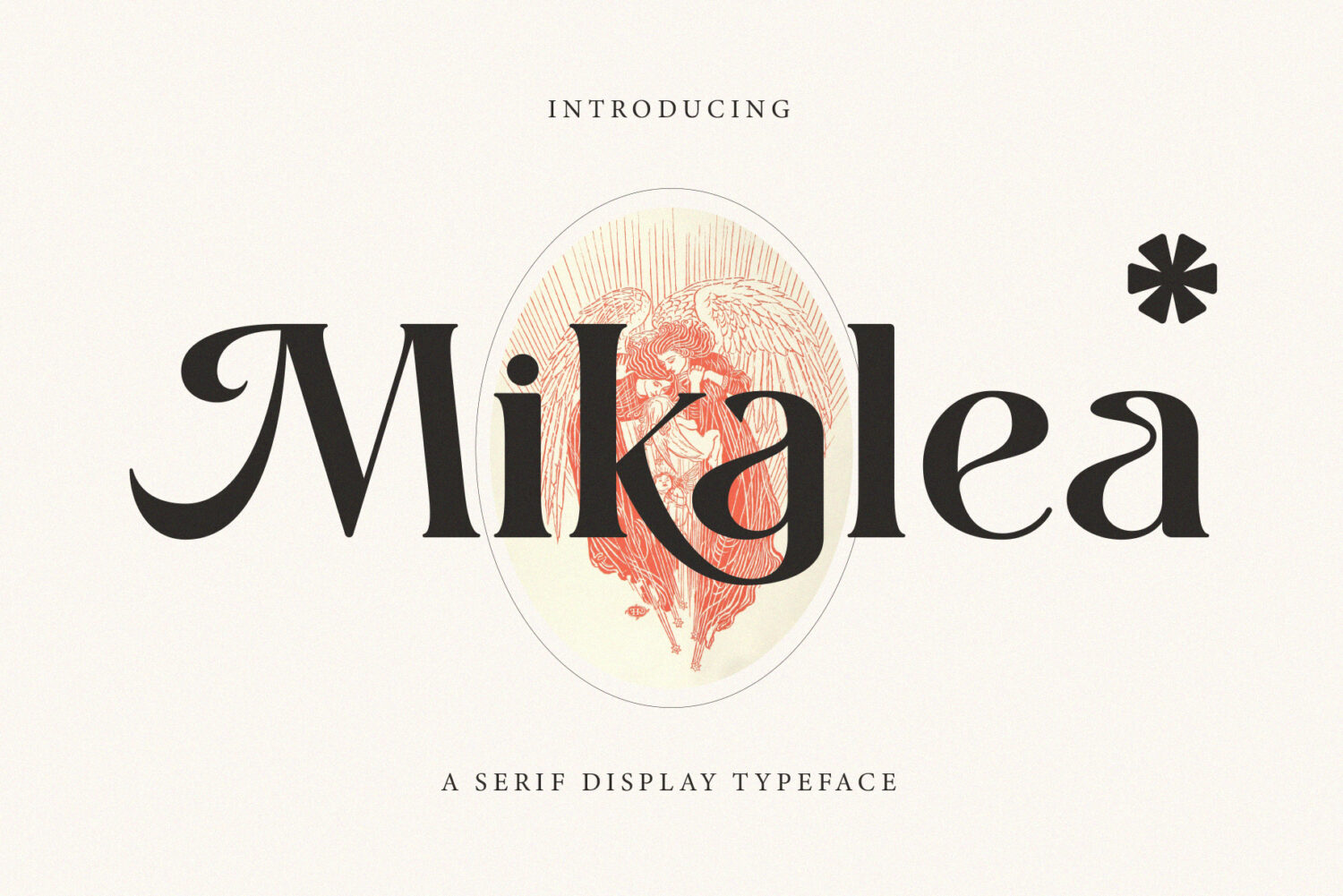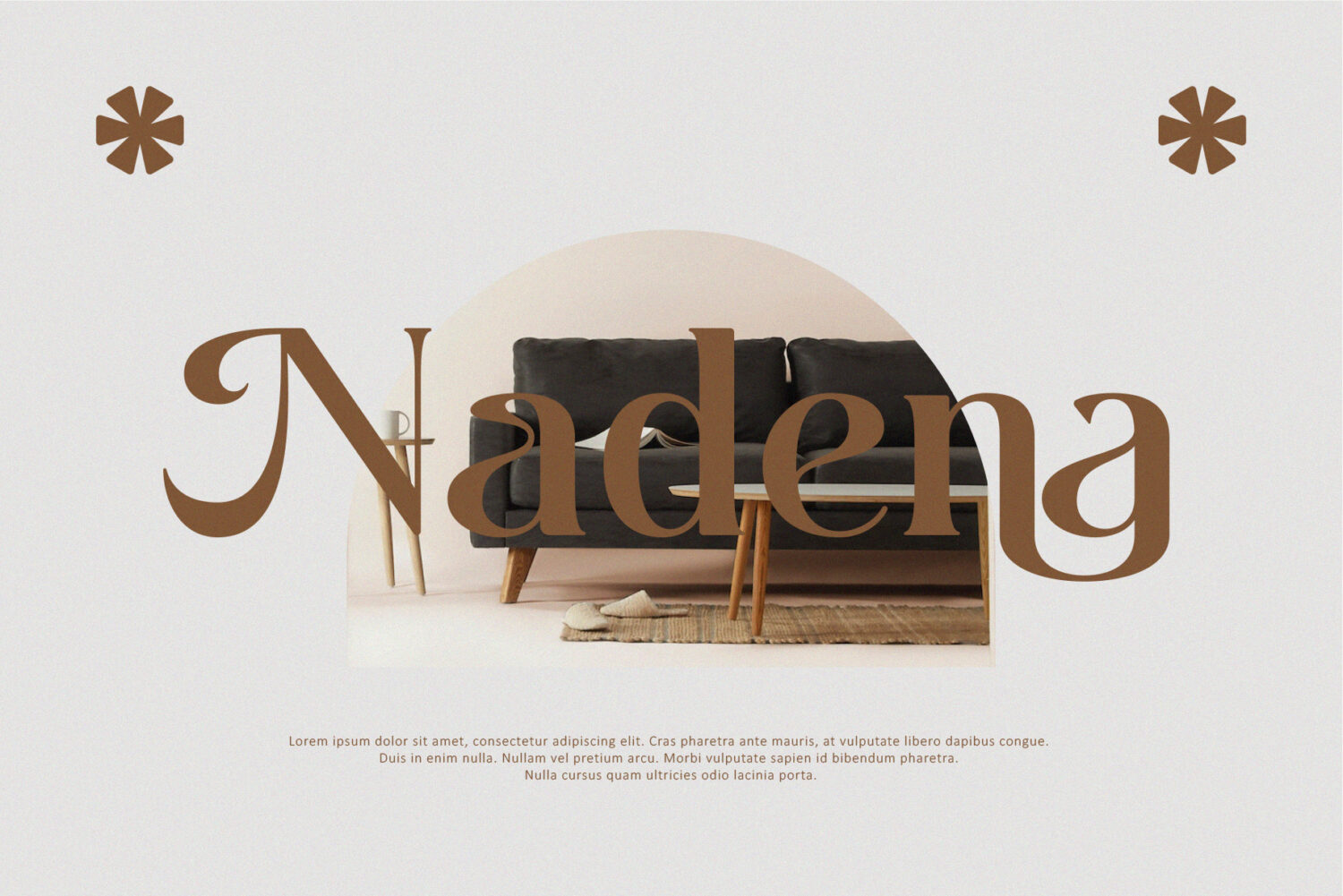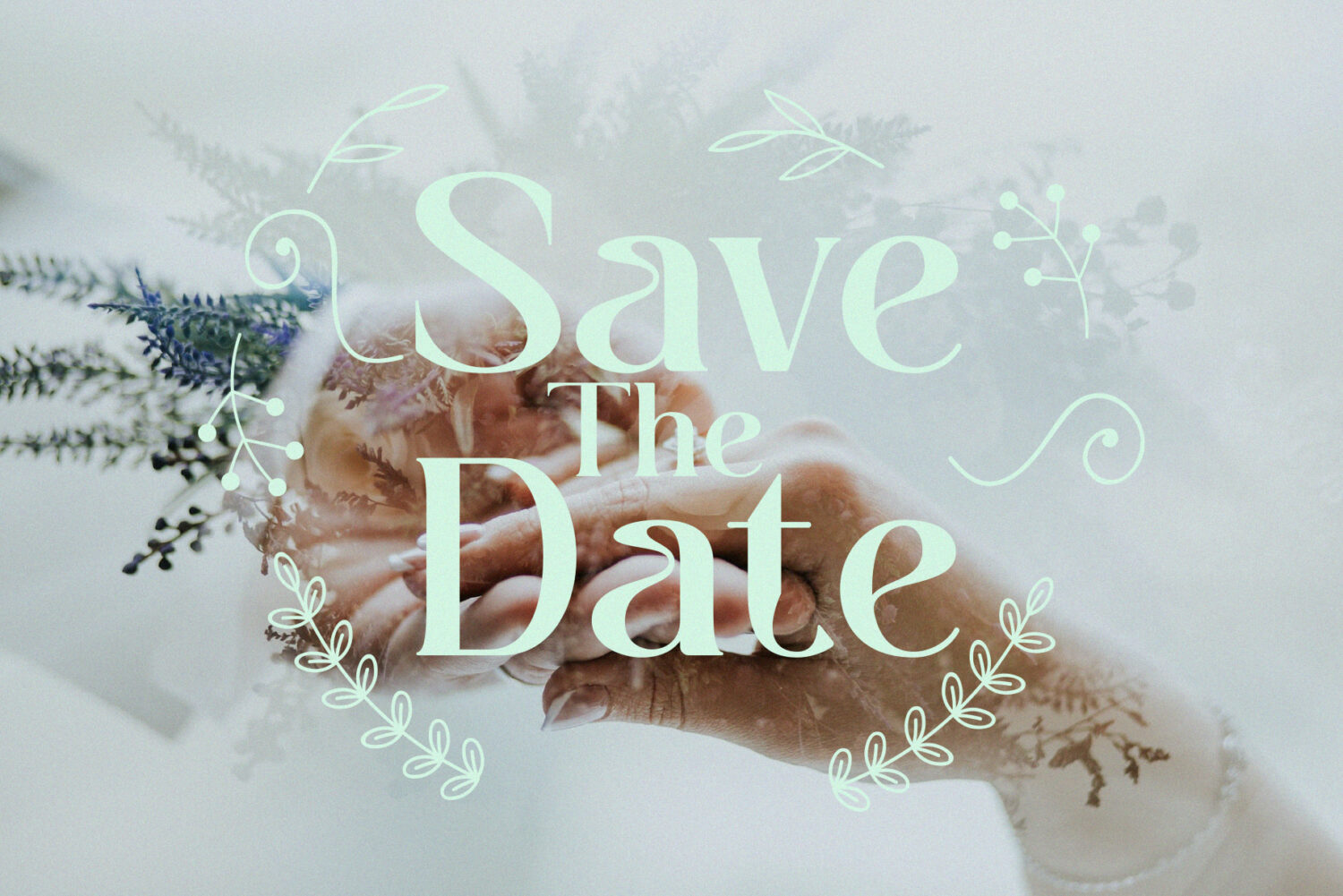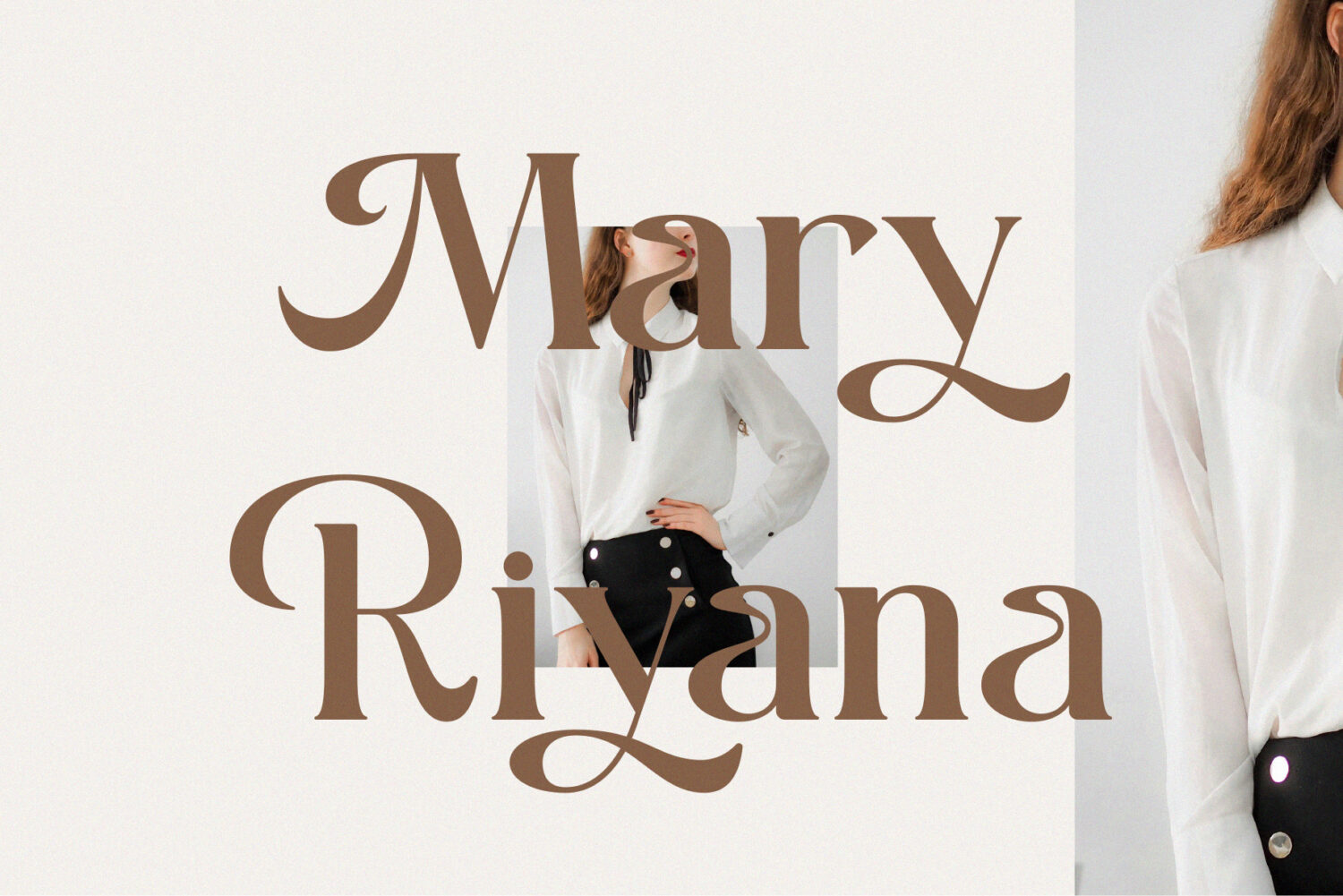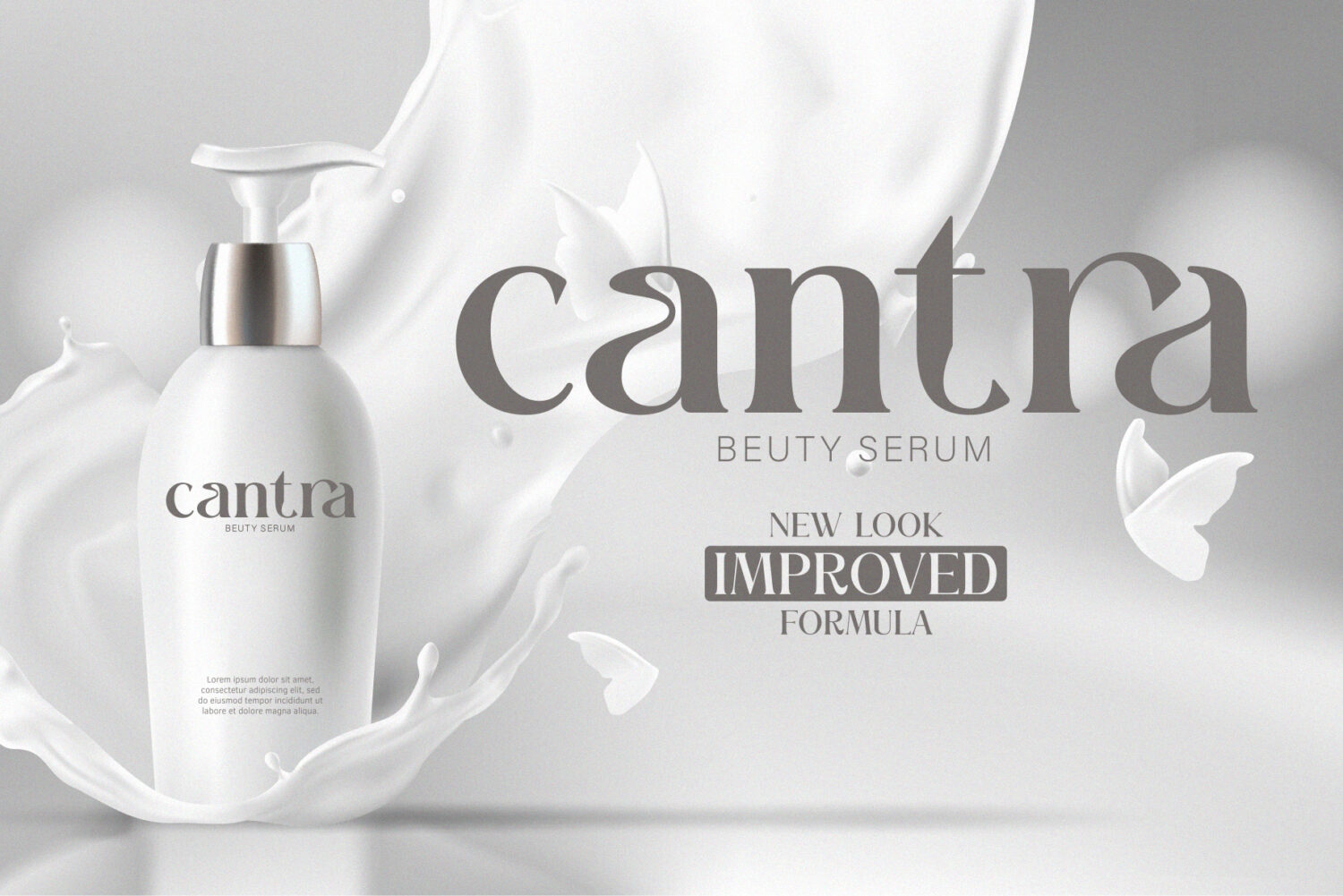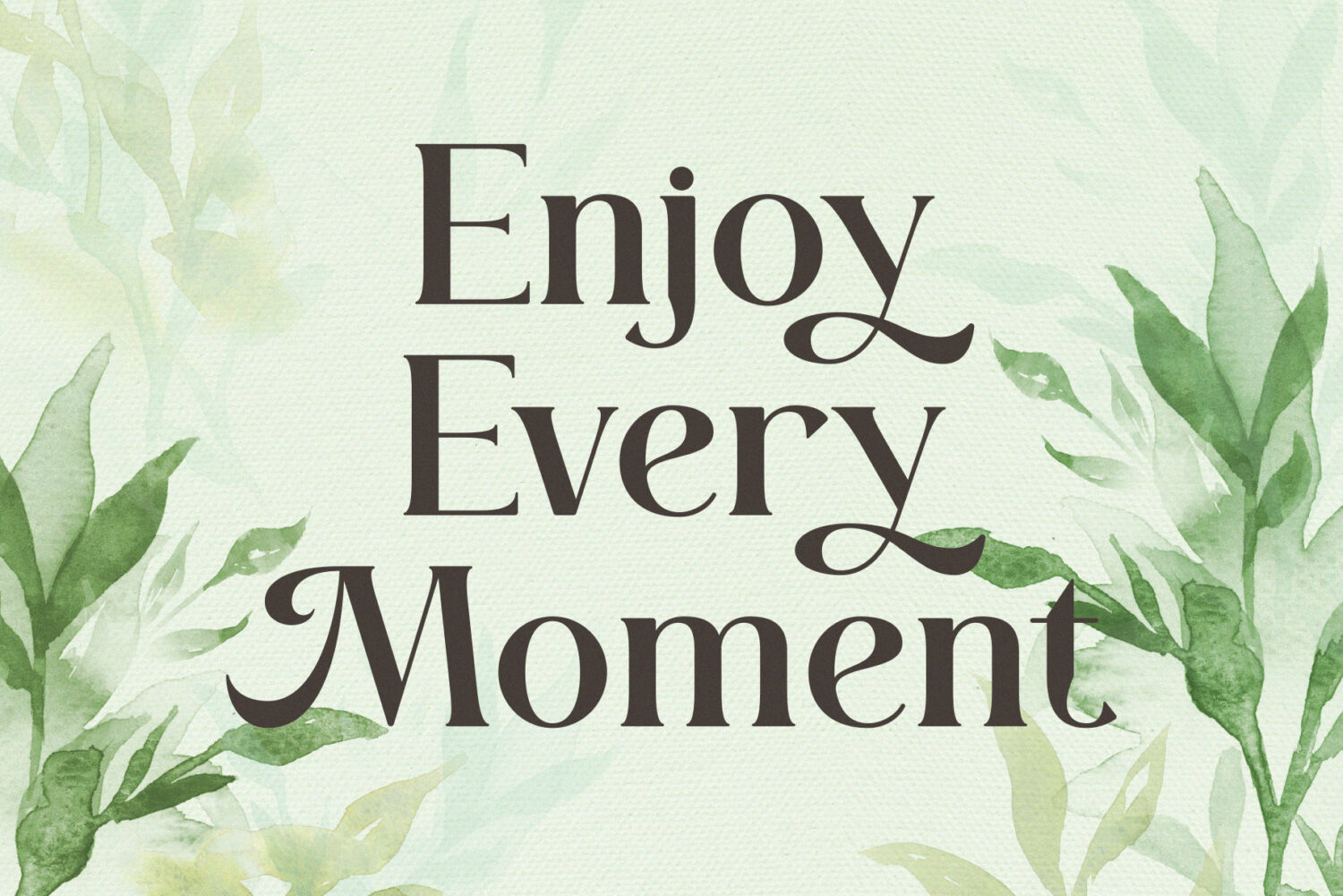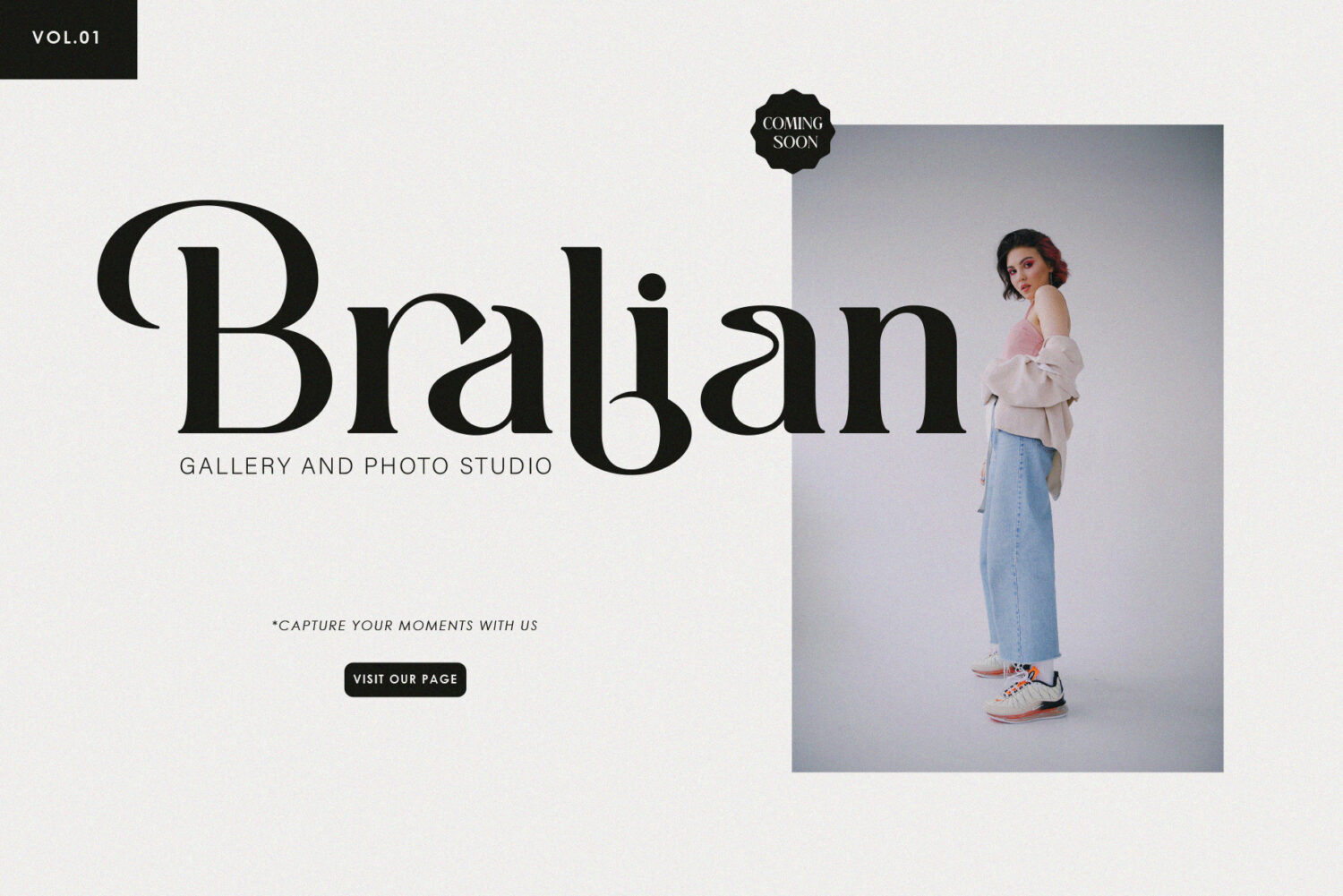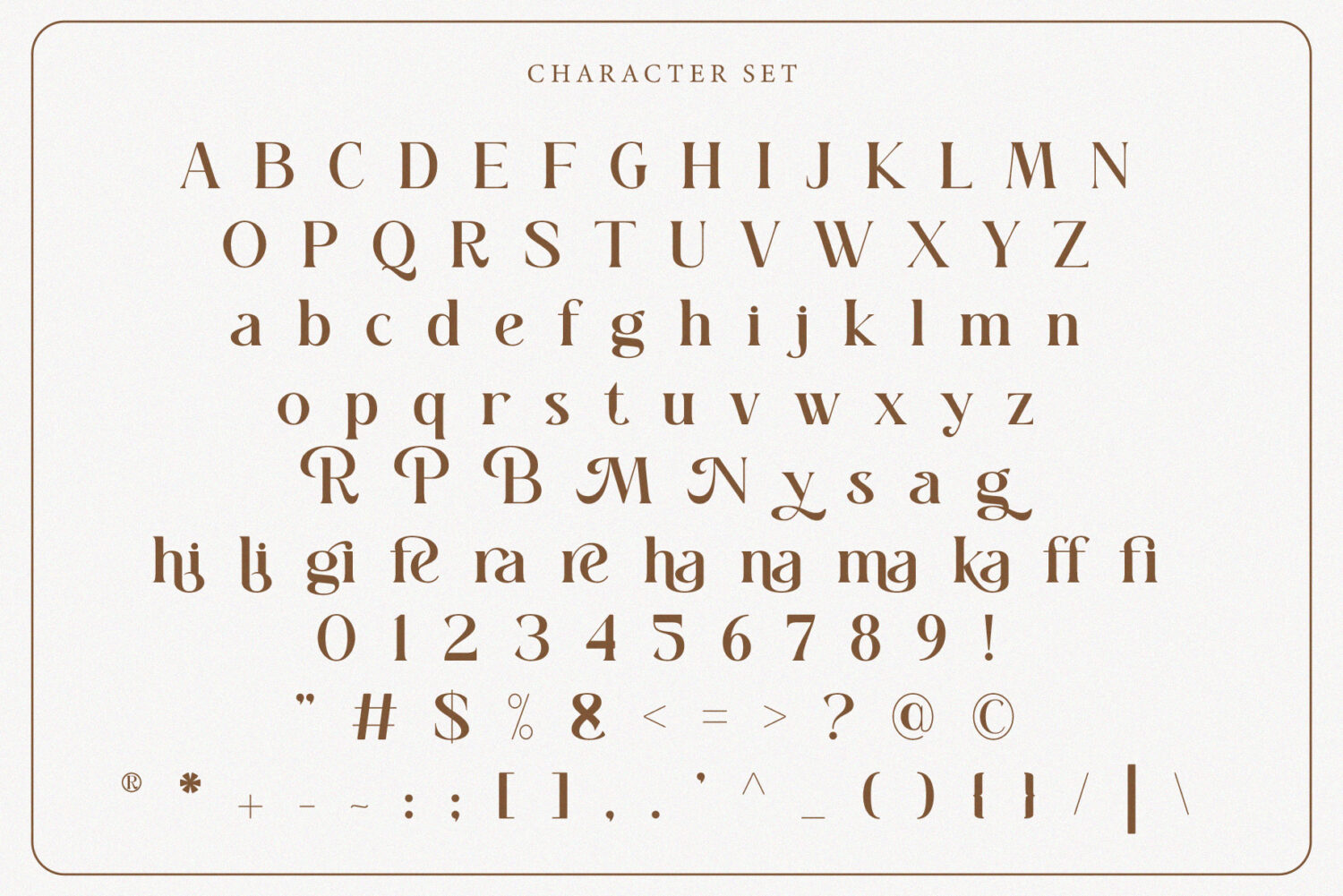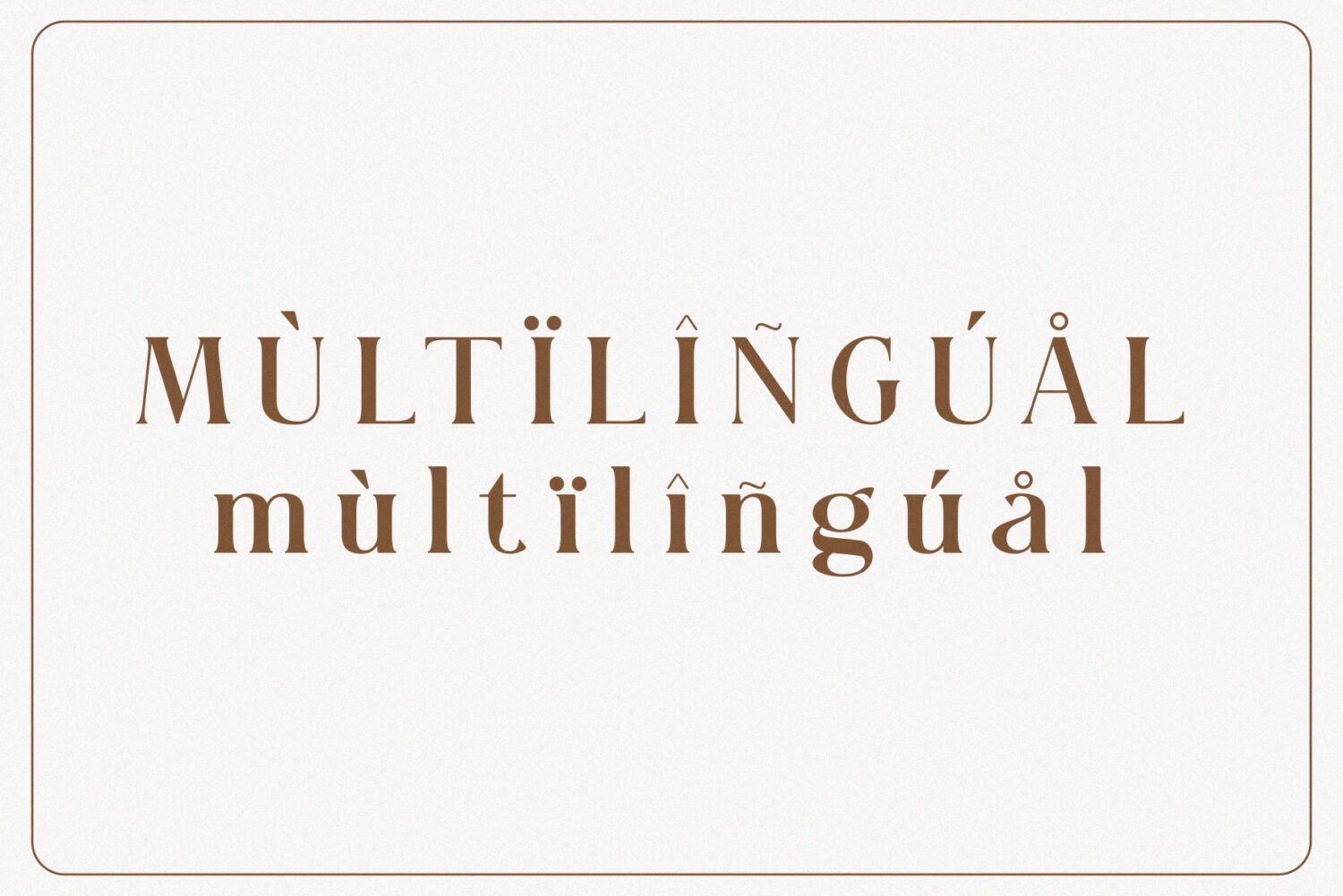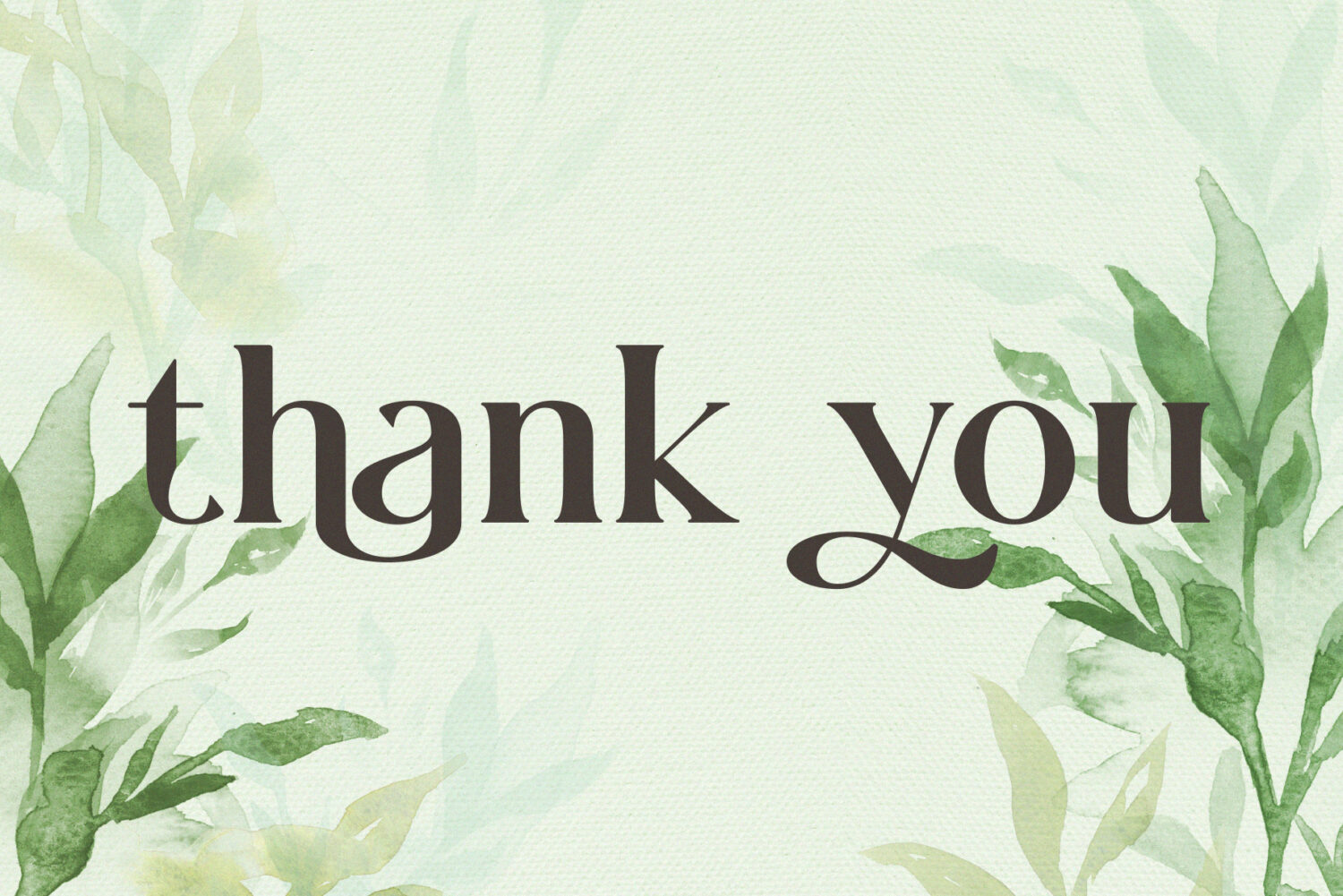
Introducing **Mikalea** the elegant, beautiful, and modern Serif Typeface. With its modern and minimalist look, Mikalea brings a luxurious, classy, and clean style to your projects such as websites, modern logos, brand identities, social media quotes, wedding stationery, magazines, and more!
Mikalea features unique and classy capital letters A to Z and also comes with unique alternates and ligatures making Mikalea a beautiful font that can be customized for various projects and jobs you want.